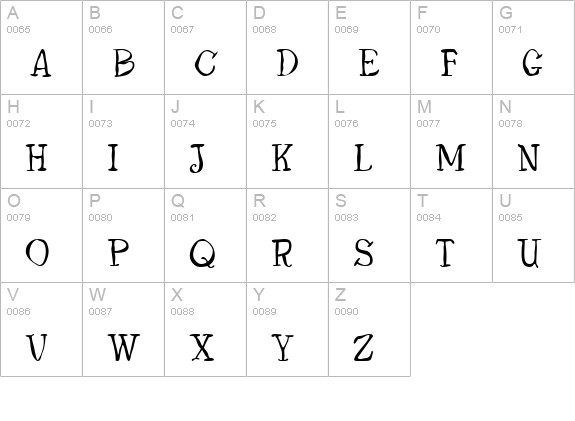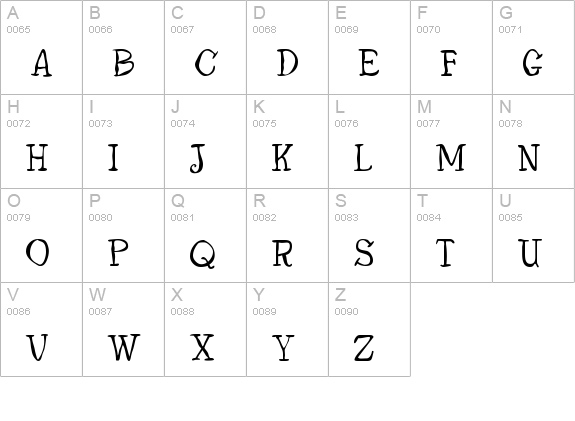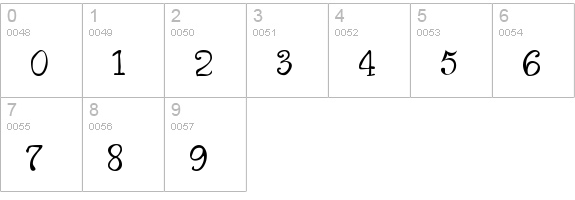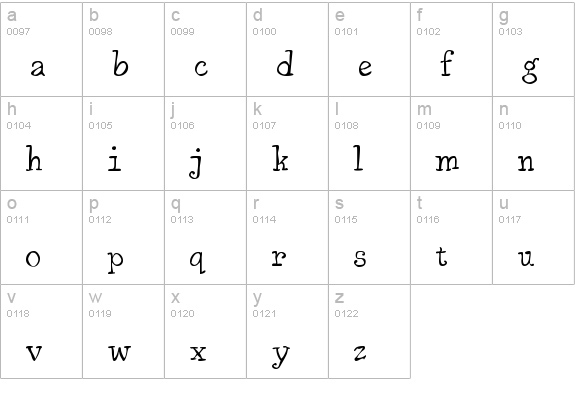
Grundee Font Details
Introducing Grundee font - a modern and stylish typeface designed to elevate your projects with its sleek and contemporary aesthetic. With its clean lines and balanced letterforms, Grundee exudes a sense of sophistication and professionalism while still maintaining a touch of warmth and approachability. This versatile font is perfect for a wide range of design applications, from branding and packaging to editorial design and web graphics. Its timeless appeal makes it suitable for both digital and print projects, ensuring that your message resonates with clarity and elegance. What's even better is that Grundee font is available for free download at FontsMarket.com. That's right, you can enhance your designs with this high-quality font without breaking the bank. So why wait? Elevate your projects today with Grundee font and make a lasting impression with its refined charm and versatility.